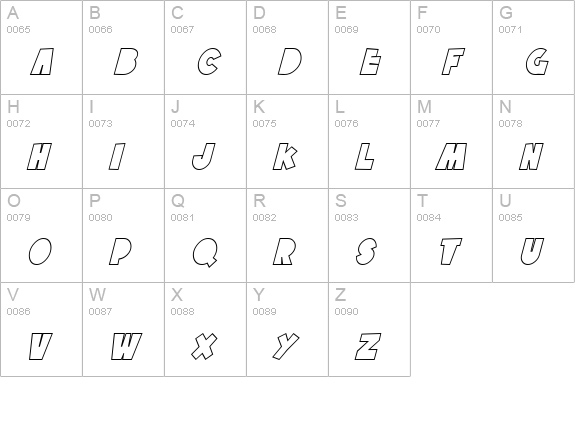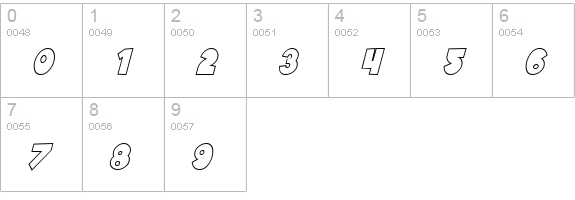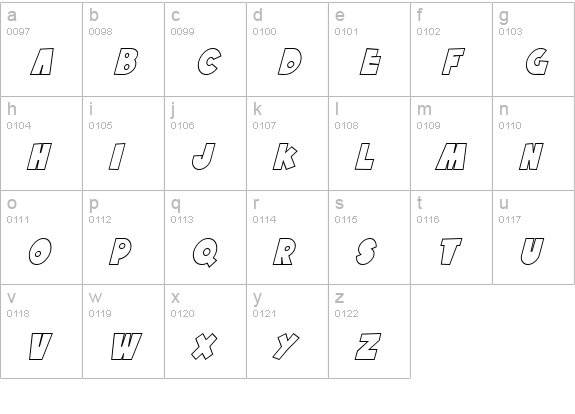
SF Tattle Tales Outline Italic Font Details
SF Tattle Tales Outline Italic is a distinctive, italic variant in the SF typeface family \xE2\x80\x94 well suited to design and typography projects.
SF Tattle Tales Outline Italic is a captivating and whimsical font that adds a touch of playfulness to any design. Its unique combination of bold outlines and slanted italics creates a visually striking effect that is sure to catch the eye. Whether you're looking to make a statement on a poster, create an eye-catching logo, or add some personality to your social media posts, SF Tattle Tales Outline Italic is the perfect choice. This font features clean lines and smooth curves, giving it a modern and contemporary feel. The italicized slant adds a dynamic and energetic touch, making it ideal for designs that need a dash of movement. Each letter is carefully crafted to ensure legibility, even at smaller sizes, so you can use this font in a variety of contexts without sacrificing readability. One of the best things about SF Tattle Tales Outline Italic is that it is freely available to download at FontsMarket.com. You can easily access and use this font without any restrictions, allowing you to unleash your creativity without any limitations. Whether you're a professional designer or a hobbyist looking to experiment, this font is a valuable addition to your toolkit. So why wait? Download SF Tattle Tales Outline Italic today and let your designs come to life with its bold and captivating style. From branding projects to digital illustrations, this font is sure to make a lasting impression. Don't miss out on the opportunity to add a touch of whimsy to your designs with this freely available font. Get creative and let SF Tattle Tales Outline Italic be your secret weapon for eye-catching designs.